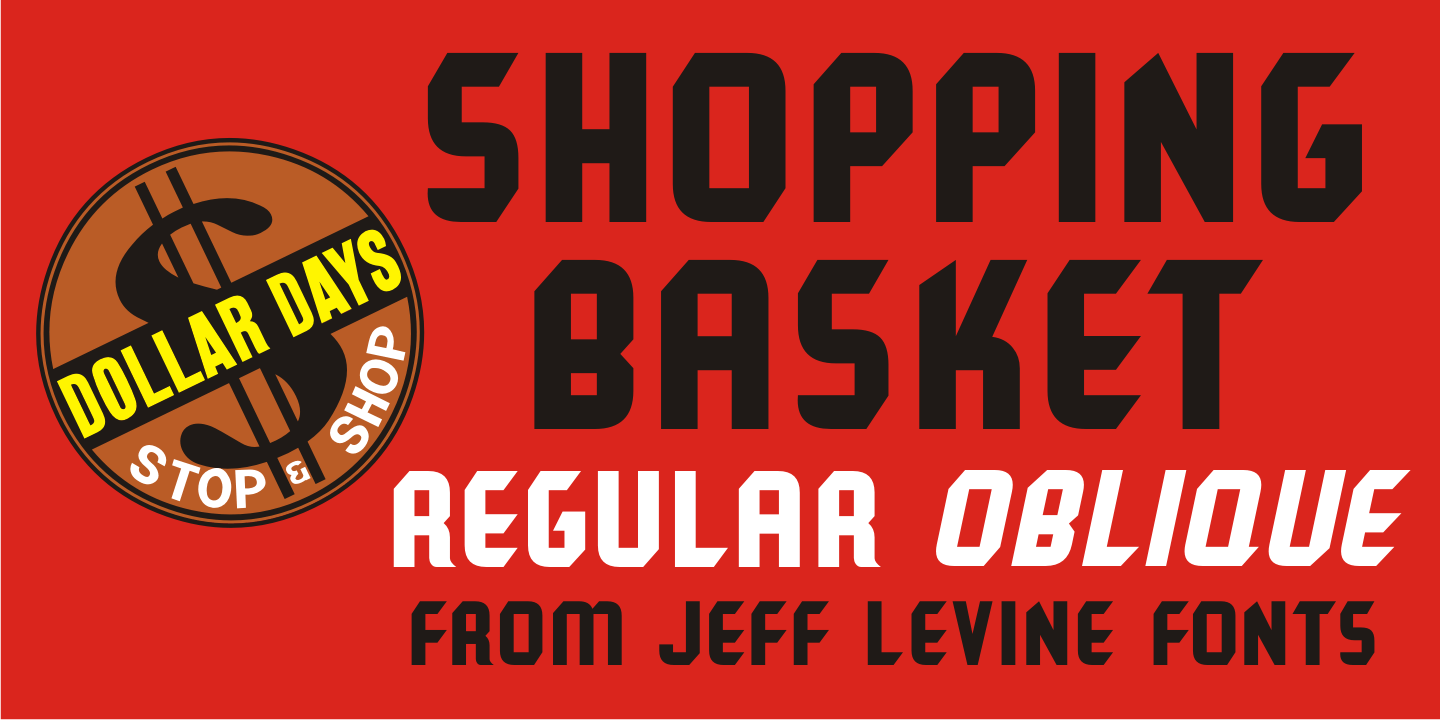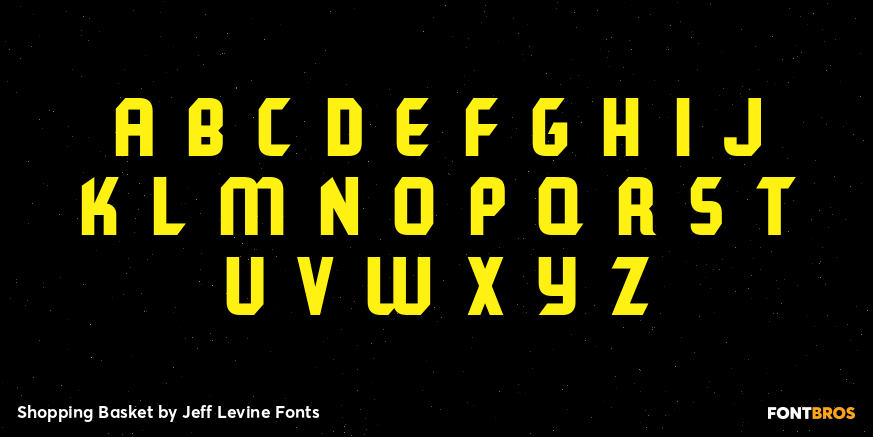
Shopping Basket
The cover of the vintage sheet music for 'This Little Piggie Went to Market' (from the 1934 film 'Eight Girls in a Boat') features a hand-lettered sans serif with intermittent chamfered angles.
This became the model for Shopping Basket JNL.